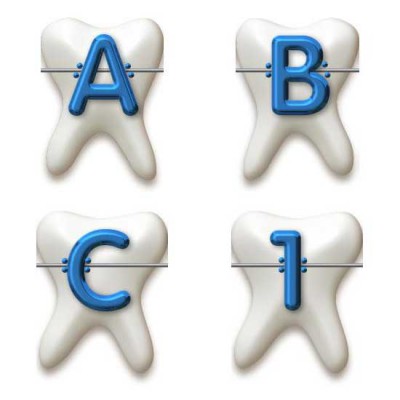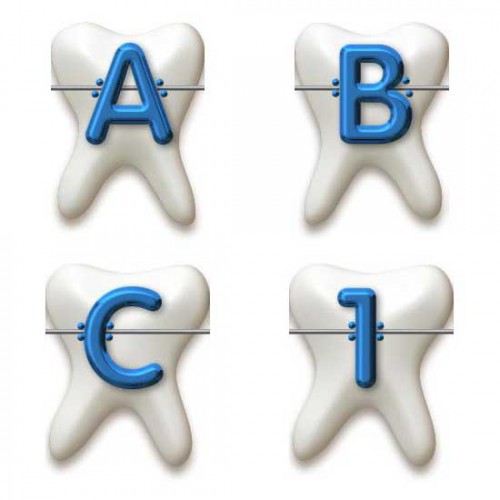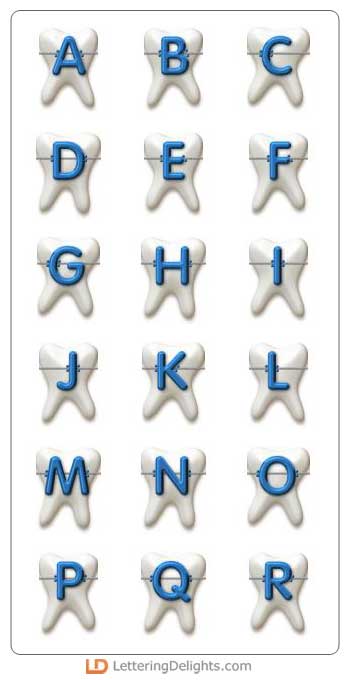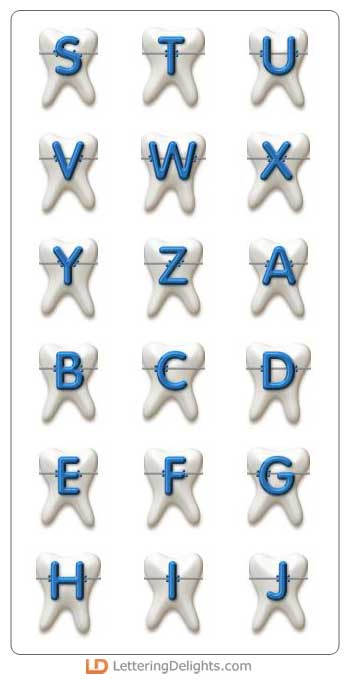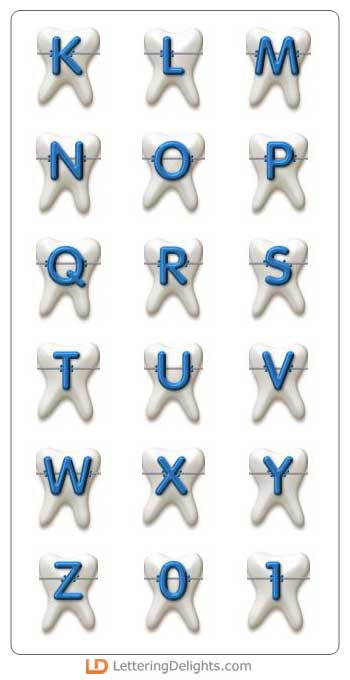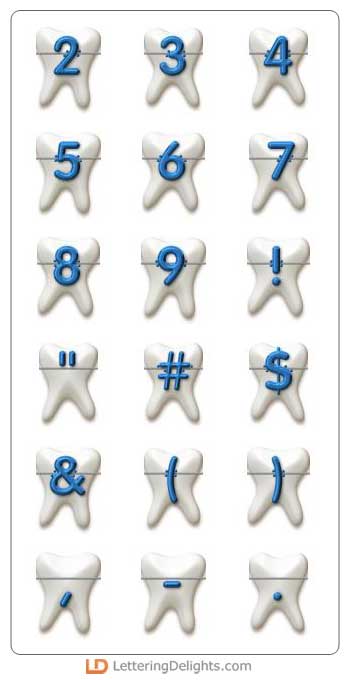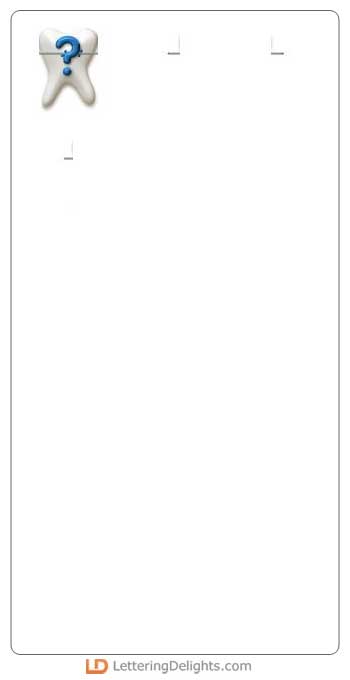
Brace Face - AL
It's time for a visit to the orthodontist! This full color alphabet shows teeth and braces, with some letters in the middle. They are linked together just like real braces.